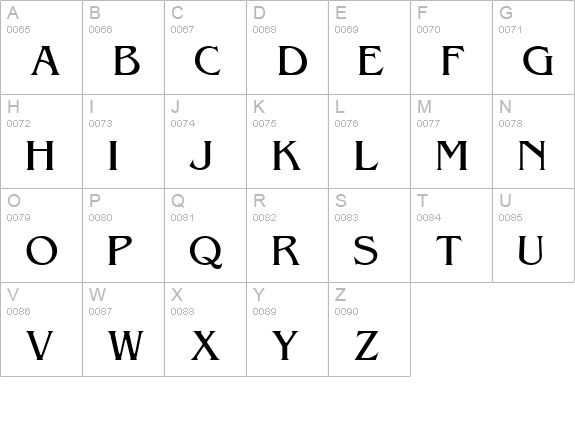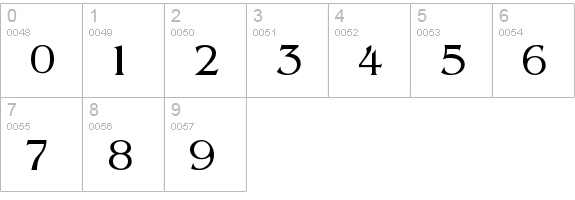
Azote SSi Font Details
Azote SSi font is a stunning display typeface that exudes a sense of modernity and sophistication. Its sleek lines and sharp edges give it a contemporary feel, making it perfect for a wide range of design projects. The font's unique letterforms are both elegant and eye-catching, making it a versatile choice for branding, advertising, and editorial design. What sets Azote SSi font apart is not only its striking appearance but also the fact that it is available for free download at FontsMarket.com. This means that designers and creatives can easily access this beautiful typeface without any cost, making it a valuable addition to their font library. Whether you're working on a logo, poster, website, or any other project that requires a touch of sophistication, Azote SSi font is sure to elevate your design with its contemporary aesthetic and timeless appeal.